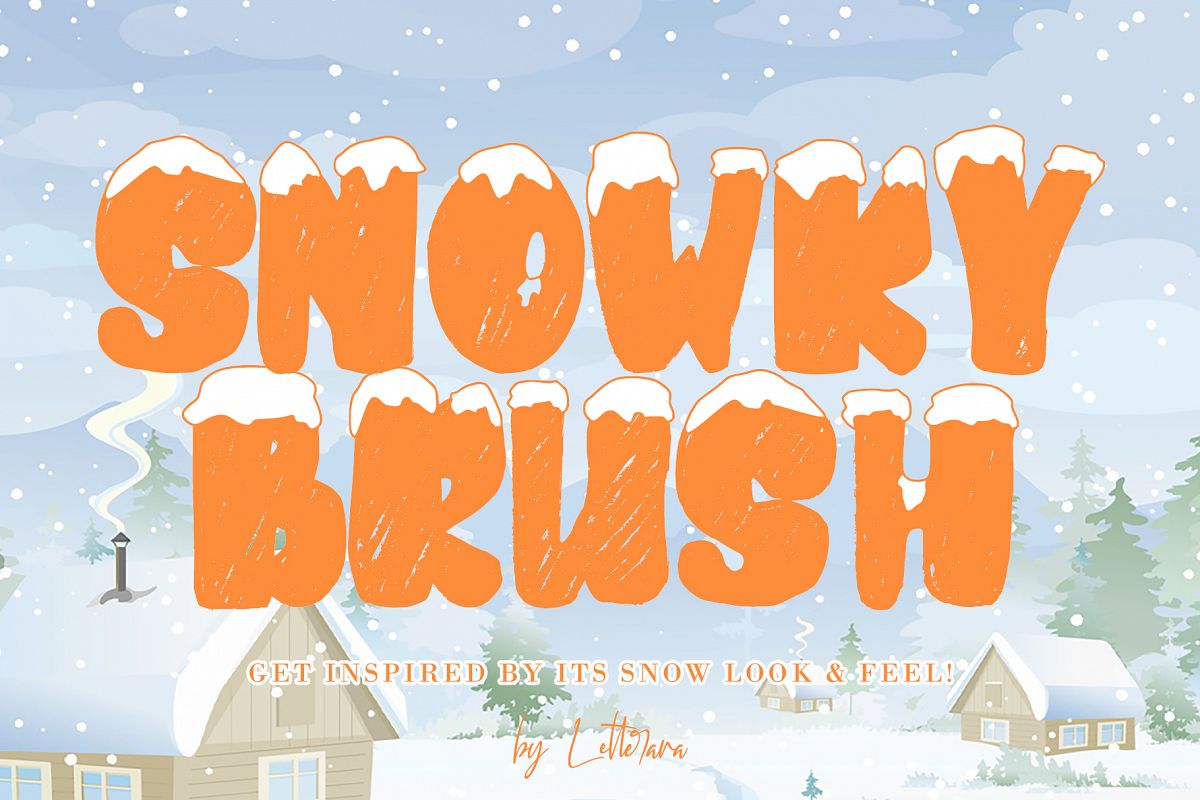
SNOWKYBRUSH is a simple layered font inspired by the
uniqueness of the snow. It includes 2 fonts.
SNOWKYBRUSH is great in any branding, posters designs, and
your upcoming winter stuff.
Get inspired
by its snow look & feel!